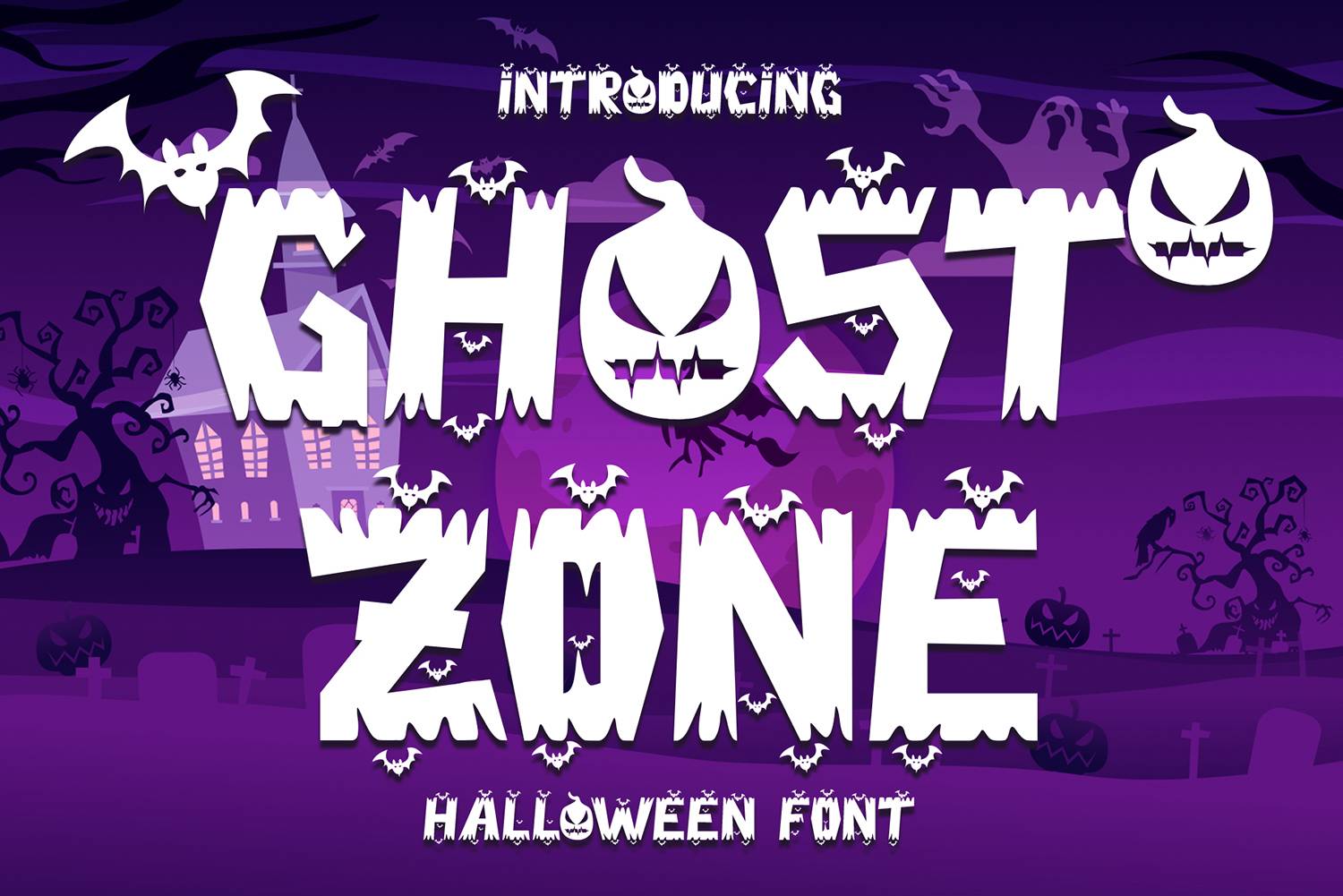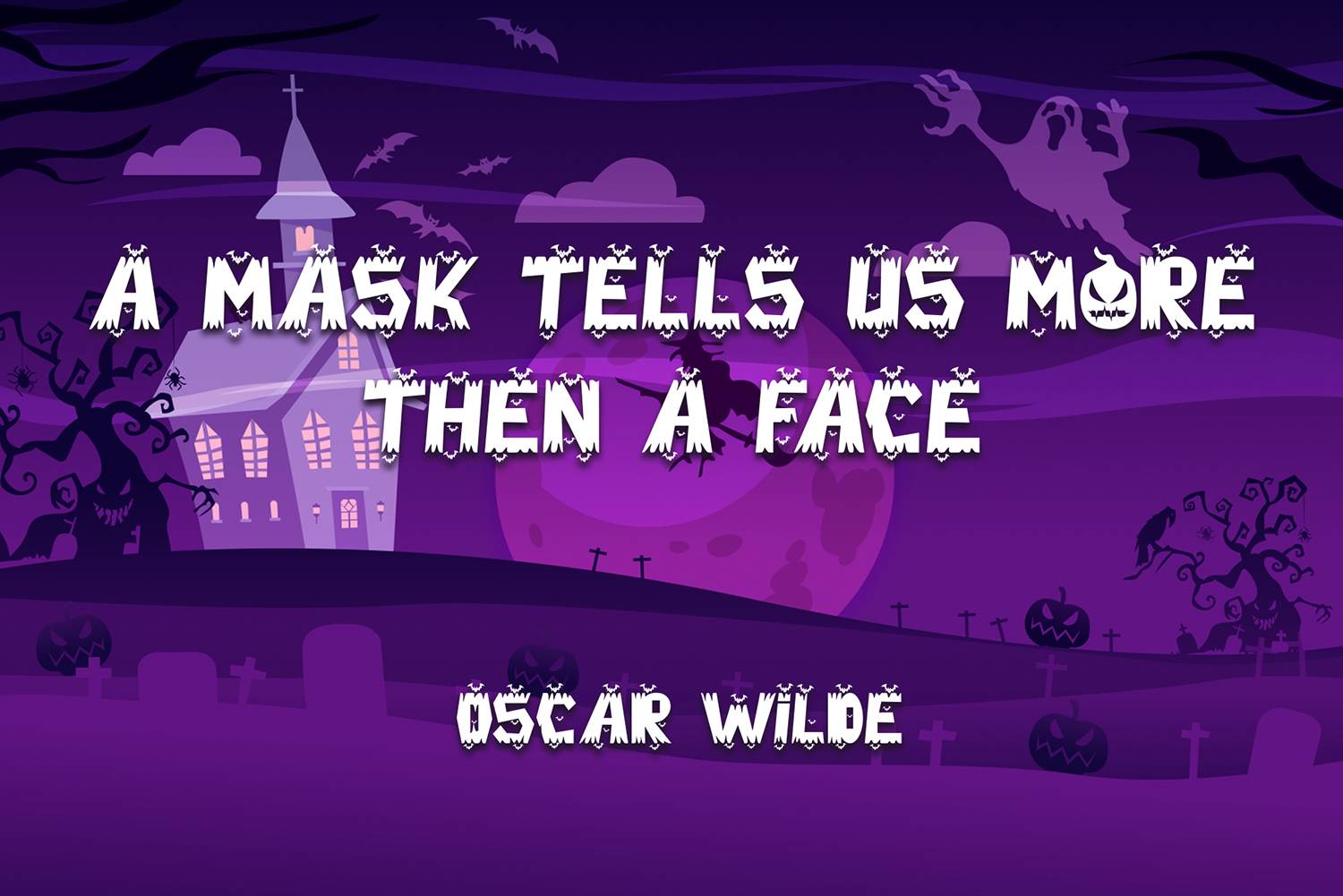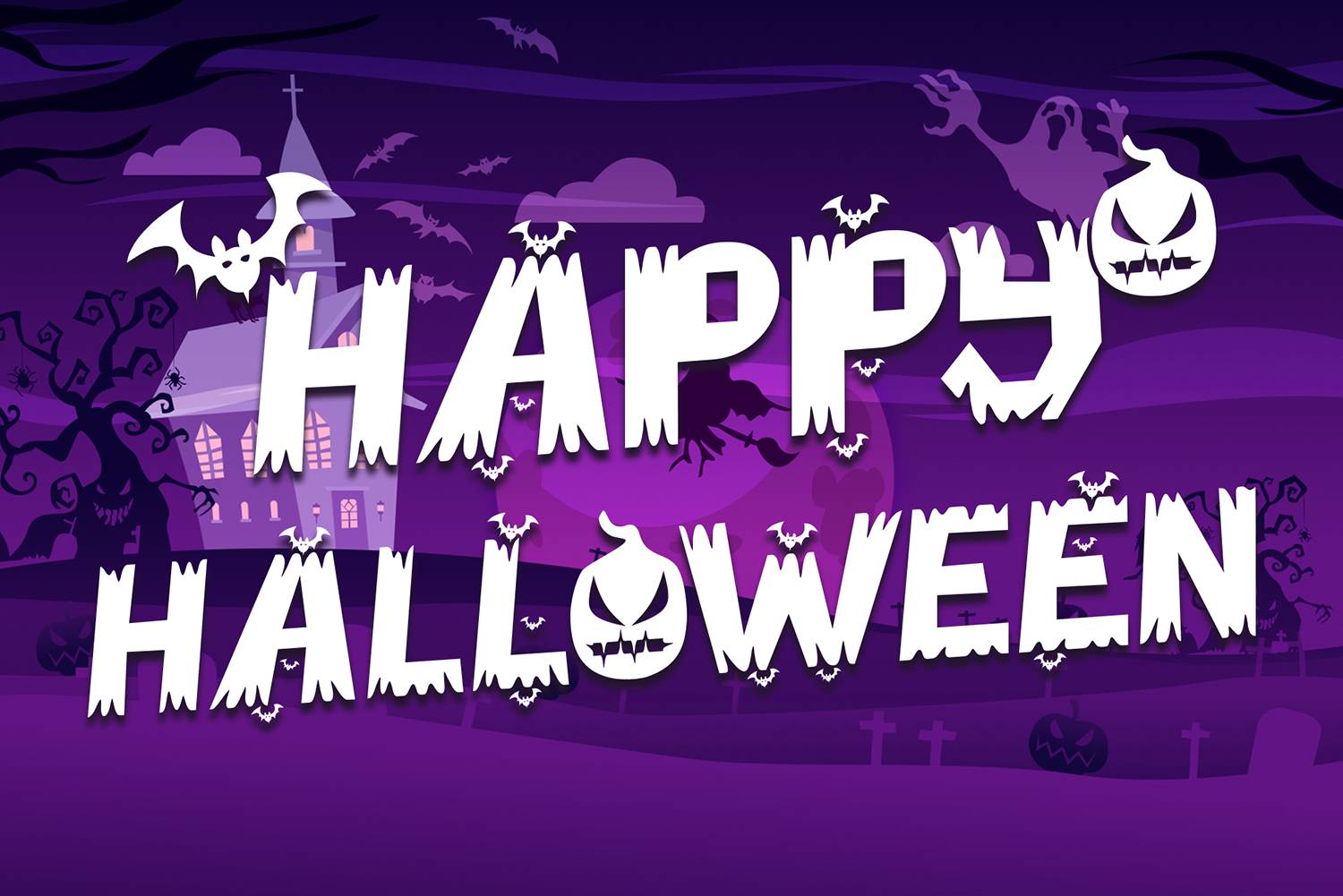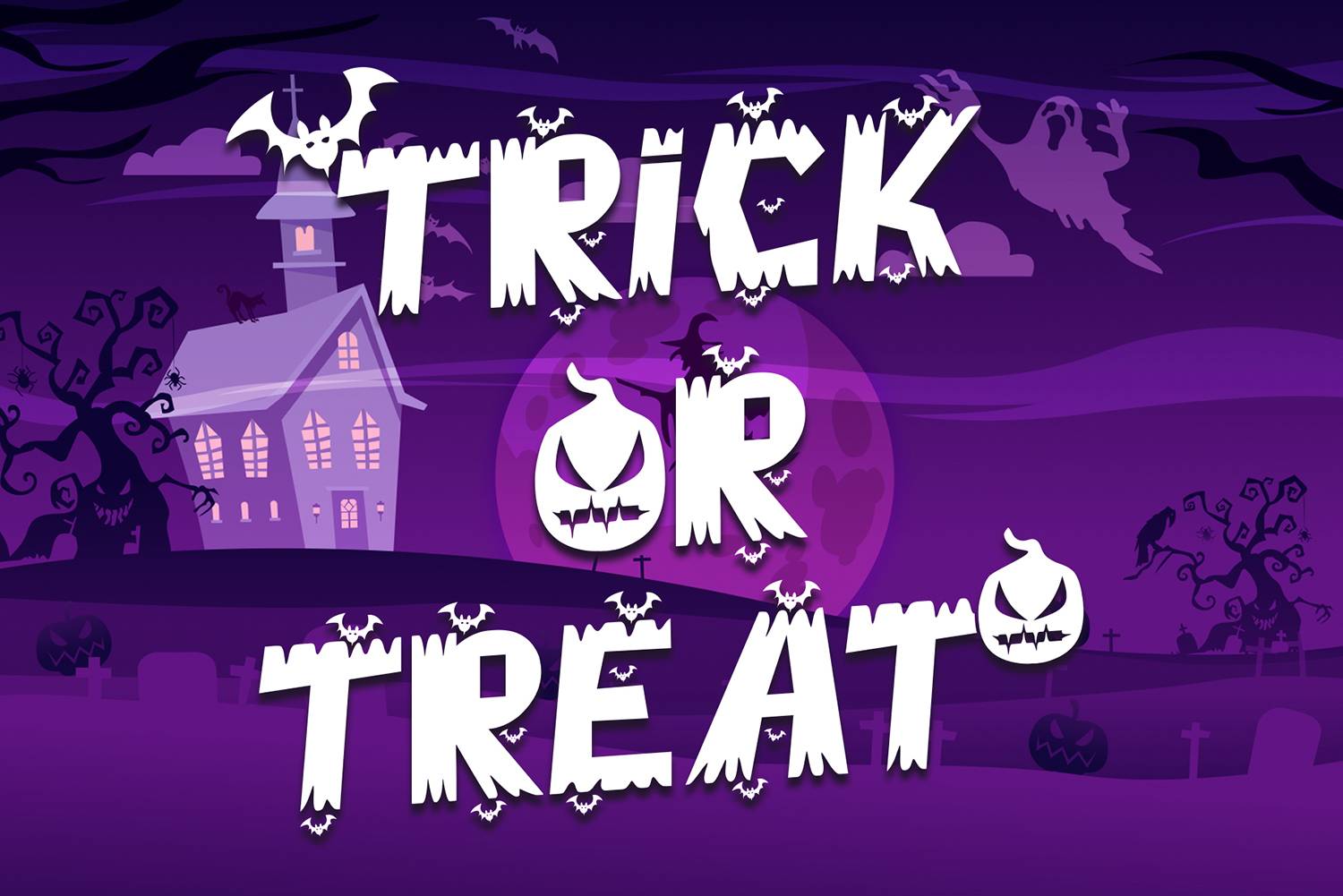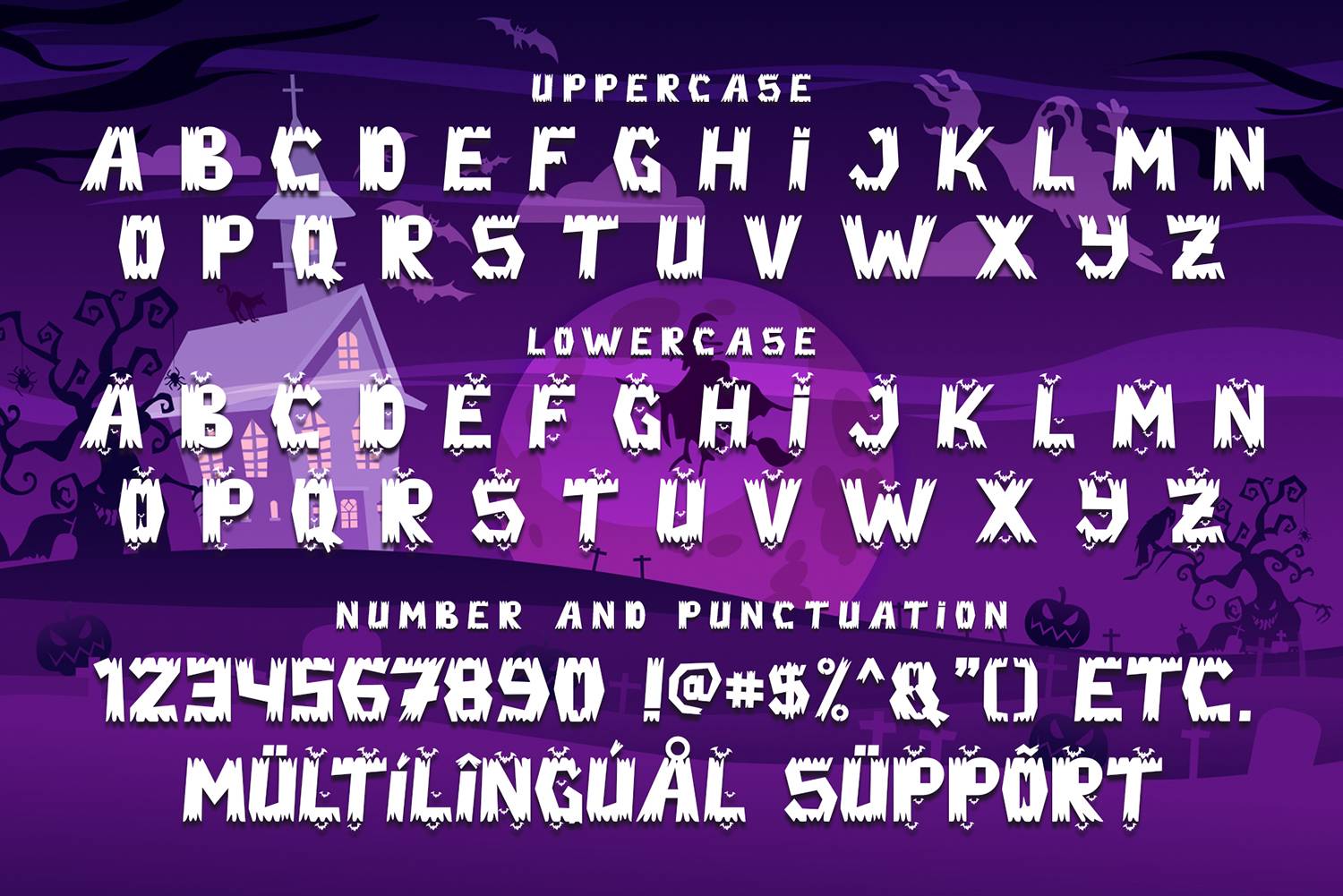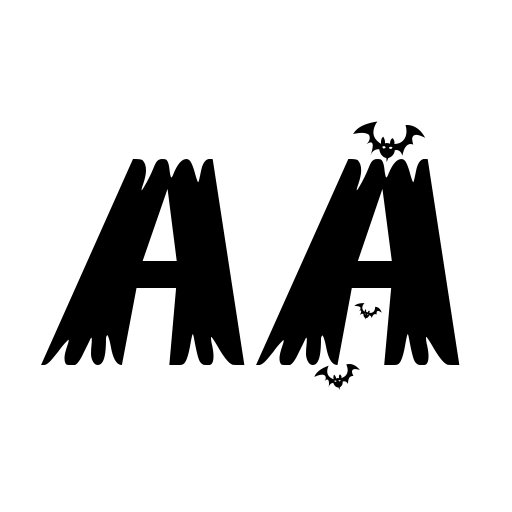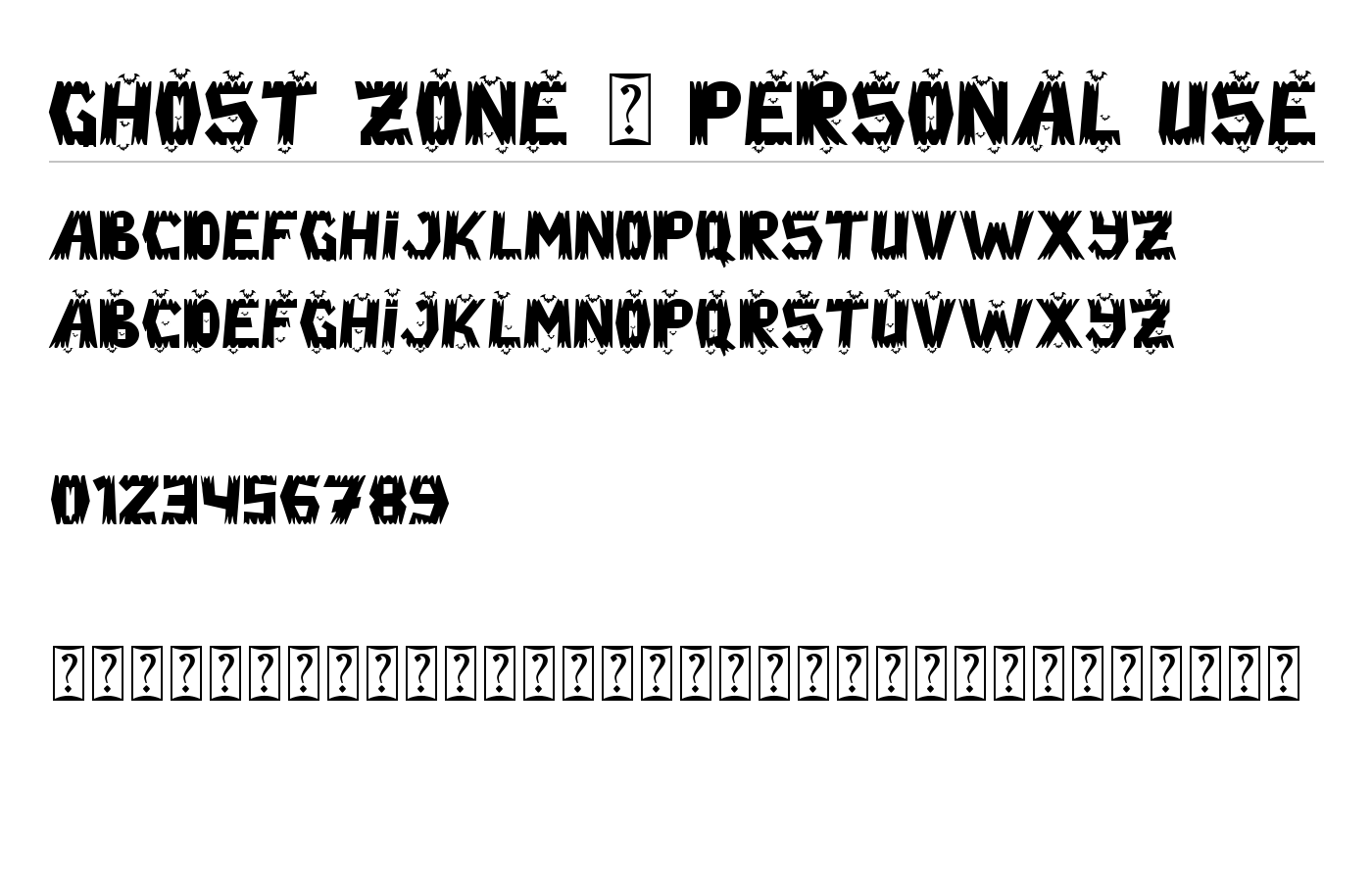
Ghost Zone is a bold, decorative display font with a spooky, jagged style that evokes a Halloween or horror theme. Its irregular, sharp edges and dripping shapes give it a playful yet eerie personality, making it ideal for festive posters, party invitations, or themed branding that wants to capture a fun but chilling vibe. This all-caps typeface works best in headlines and titles where it can grab attention and set a spooky tone.
Ghost Zone Font